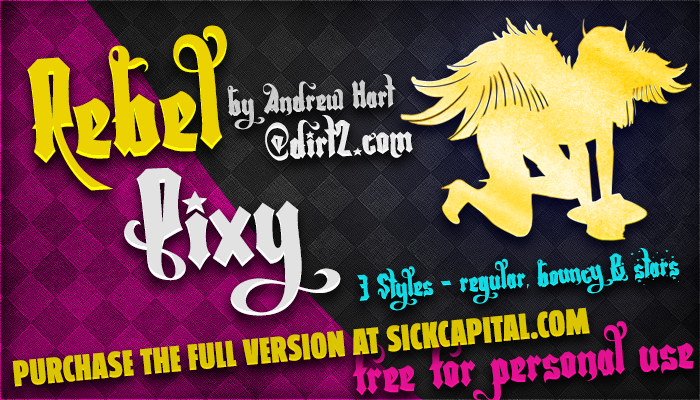
Preview and download Rebel Pixy Font. Created by Dirt2.com - SickCapital in Gothic Various styles with Free for personal use license.
Note by Dirt2.com - SickCapital | |
An old-english font with swirls and stars loosely based off of my font 'Ithornet' which you can download on DaFont as well. There are 3 versions: regular, stars (which has lots of added stars) and bouncy which is the regular version but with the characters rotated and positioned randomly. To use this font in merchandise, logos and commercial projects please purchase the full version in my shop at: SickCapital.com Happy downloading & stay fresh, Andrew2 |